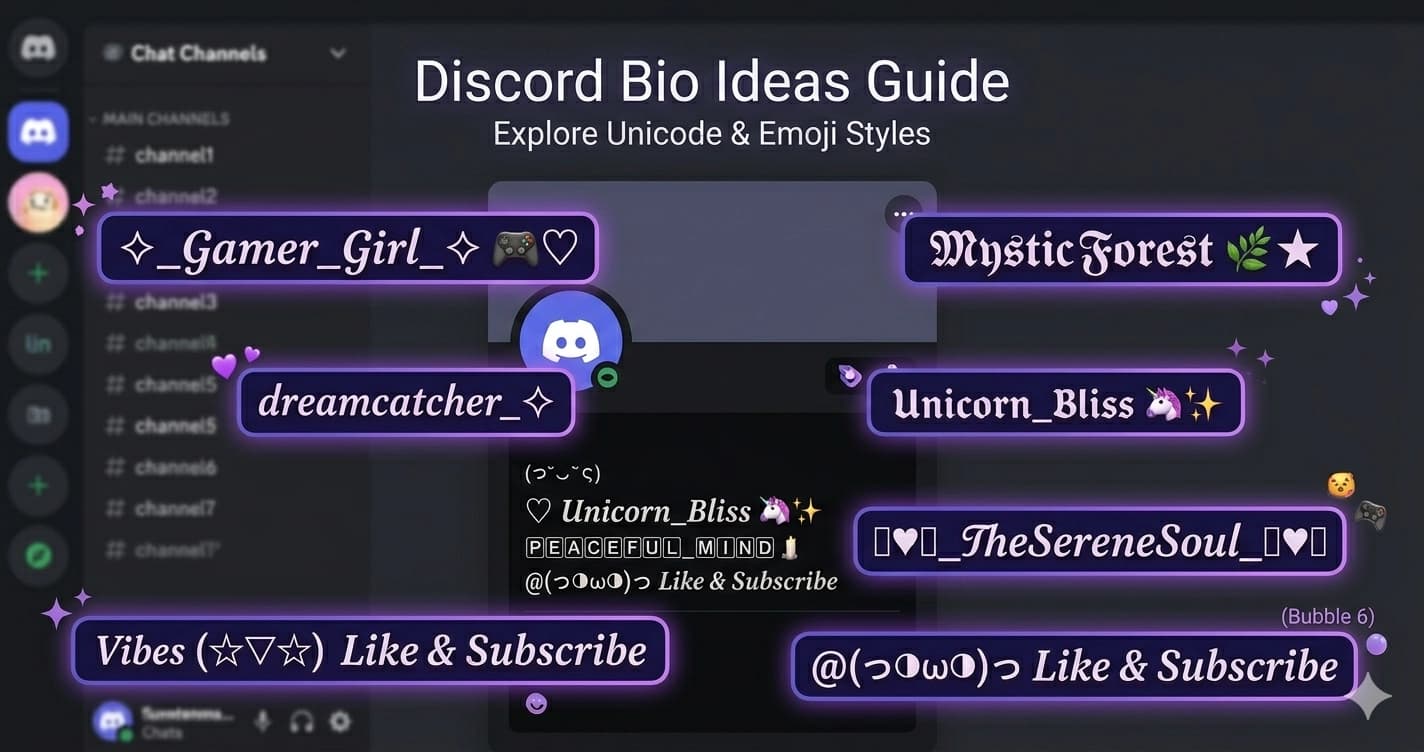
Discord Bio Ideas — Aesthetic, Cool, Funny + How to Style Them
Your Discord bio (About Me) is 190 characters of space to tell people who you are before they even send a message. Most people leave it blank or write one generic line. Here are 100+ ideas across every aesthetic — plus how to style them so they actually look the part.
How Discord Bios Work
The About Me section appears on your profile card — the popup that appears when someone clicks your avatar. It supports:
• 190 characters maximum
• Full Unicode text (styled fonts, symbols)
• Emoji (each emoji counts as 2 characters)
• Line breaks
• No clickable links (URLs appear as plain text)
The bio is secondary to your display name — most people won't see it unless they click your profile. That makes it a space for personality rather than a first impression. Use it to say something real.
Gaming Discord Bio Ideas
Competitive / serious:
grinding ranked until I forget what sunlight looks like support main. yes, I ward. no, I won't stop. 5,000 hours in and I still don't know what I'm doing win or learn. mostly learn. ranked addict. therapy pending.
Casual / chill:
here for the vibes, staying for the lore games are better with people who don't take them seriously couch co-op enthusiast in a world that forgot couch co-op I play at 2am and blame it on the timezone single player enjoyer in a multiplayer world
RPG / fantasy:
lore goblin. I read every item description. chaotic neutral and proud I side with the villain every playthrough 40 hours in the main quest, 300 hours in side quests dungeon master by weekend, corporate drone by week
FPS / action:
headshots only, apologies never entry fragger. also the first to die. I don't camp. I hold angles. clutch or kick — usually kick
Aesthetic Discord Bio Ideas
Soft / dreamy:
existing softly in a loud world somewhere between a daydream and a deadline collecting moments like polaroids soft hours only 🌙 made of starlight and overthinking
Dark / moody:
I run on spite and black coffee the night shift person in every group chat romanticizing a life I haven't built yet too tired to be dramatic, doing it anyway somewhere between haunted and fine
Cottagecore / nature:
foraging for mushrooms and good vibes living like it's always golden hour bees, bread, and bad decisions moss and melancholy tending to something, even if it's just my mood
Lo-fi / vaporwave:
drifting through digital sunsets 80s nostalgia for a decade I didn't live city lights from a window I'll never open static and synthwave forever buffering on all frequencies
Minimalist:
here. mostly. occupied. do not disturb. (please disturb) lurking professionally somewhere.
Cute Discord Bio Ideas
sugar, spite, and everything nice soft on the outside, feral on the inside I give good hugs and unsolicited advice professional overthinker, amateur baker tiny but chaotic powered by tea and good intentions I adopted a plant and I'm doing my best emotionally attached to fictional characters baking cookies and avoiding conflict friendship is my love language
Funny Discord Bio Ideas
my personality is a Wi-Fi signal — present but unreliable I would like to apologize in advance legally obligated to mention I'm a Gemini I have two moods: sleepy and unhinged main character energy, NPC budget professionally confused since birth I said I'd go to bed early. that was four hours ago. everything I do is technically intentional I'm fine. (I am not fine.) not a morning person. not an evening person. not a person, honestly. diagnosed with "one more episode" syndrome my sleep schedule is held together with spite sarcasm is my love language. sorry in advance. I answer DMs when Mercury is in retrograde
Anime / Weeb Discord Bio Ideas
living in the wrong anime isekai'd into the wrong world with no cheat abilities I've watched enough anime to know this is a bad idea protagonist energy, zero plot armor my favorite character died in episode 3 manga reader. no spoilers. please. the side character with the best arc JRPG inventory management is a personality trait this is fine (it is not fine) 🔥 healing arc in progress
Dark / Edge Discord Bio Ideas
I contain multitudes, most of them tired the tragedy is I'm still here chronically online and emotionally offline darkness within, chaos without I bite. you've been warned. not evil, just tired morally grey and proud villain origin story pending gothic at heart, chaotic in practice running on existential dread and energy drinks
Music Discord Bio Ideas
living inside a song I can't name playlist curator, concert haver I judge people by their music taste. sorry. always one album away from feeling better ears full, heart empty, vibing anyway music is cheaper than therapy and louder vinyl collector and bedroom philosopher the aux cord is not a democracy specific taste, general chaos I know every lyric to songs I've never heard
Lo-fi + Vaporwave:
drifting through digital sunsets beats · art · quiet hours 🎧 lo-fi always on